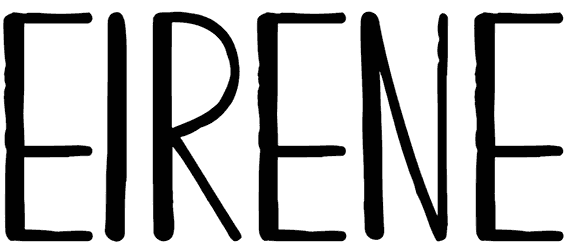
Eirene Font
Eirene has drawn cartoon characters that are placed together in an orderly manner and jump at you to create a sense of playfulness in writing. This simple font is full of good cheer and has happy moods that can be used on t-shirts, social media content, and posters. Simply put, this condensed font will be your only step toward a more stylish design that will ultimately turn heads.